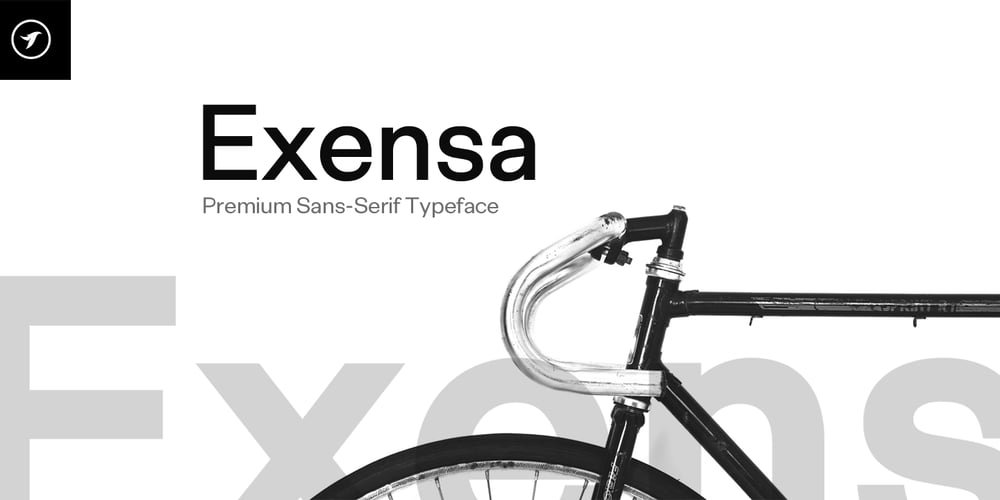
Exensa Grotesk Font Family was designed by Jean Johnson and published by Designova. Exensa Grotesk contains 10 styles and family package options. Exensa Grotesk is an authentic Sans Serif typeface inspired by Swiss Design and some of the world’s most elegant typefaces that keep the expressive nature of a premium font at its level best. Extensa Grotesk will be best suited to create nicely looking headlines as well as page content. It is your best choice of sans-serif font for your next project.